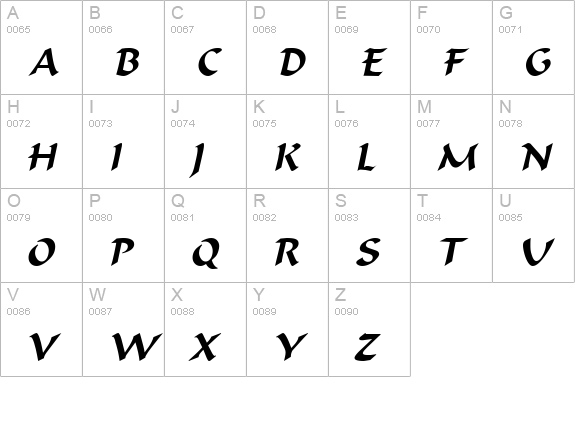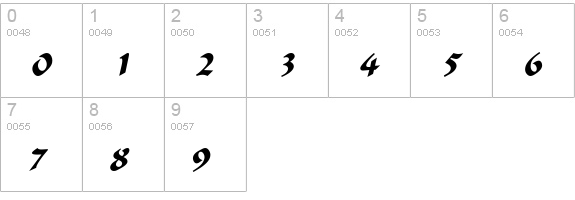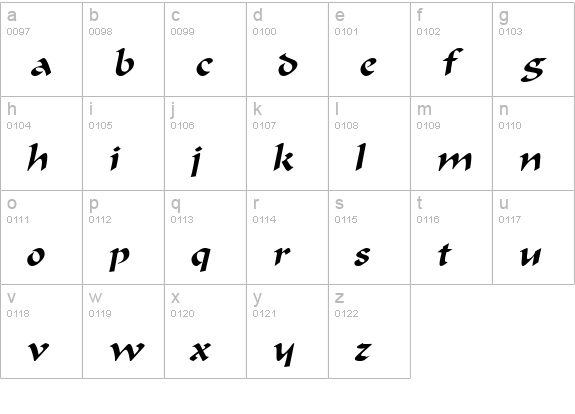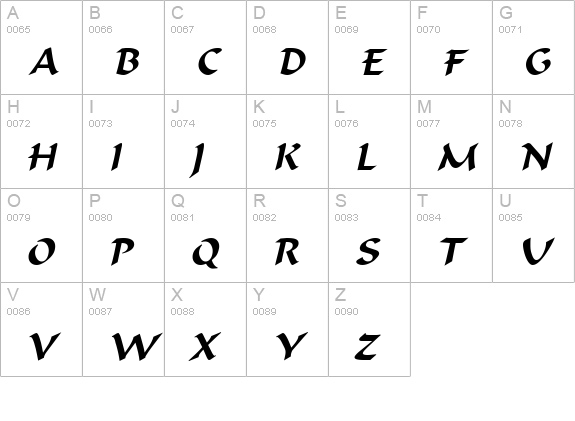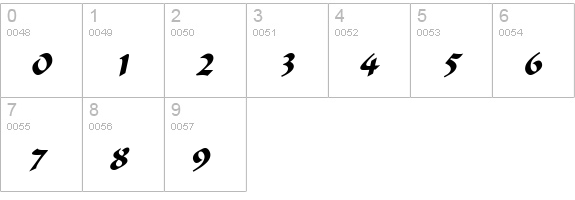
Flat Brush Italic Font Details
Flat Brush Italic is a distinctive, italic variant in the Flat typeface family \xE2\x80\x94 well suited to design and typography projects.
The Flat Brush Italic font is a captivating and modern typeface that exudes elegance and sophistication. Its sleek and stylish design is perfect for adding a touch of flair to any project. The italicized characters give a sense of movement and dynamism, making this font ideal for conveying a sense of creativity and innovation. What makes the Flat Brush Italic font even more appealing is that it is completely free to download at FontsMarket.com. This means that you can elevate your designs without having to worry about any additional costs. Whether you are working on a branding project, a website design, or any other creative endeavor, the Flat Brush Italic font is sure to make a lasting impression. With its bold strokes and unique aesthetic, the Flat Brush Italic font is sure to stand out and capture the attention of your audience. Download this font today and unleash your creativity with this versatile and eye-catching typeface.